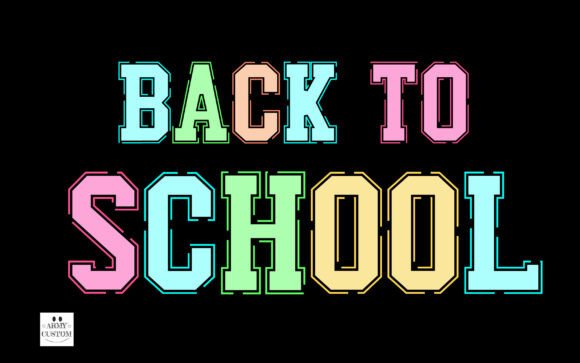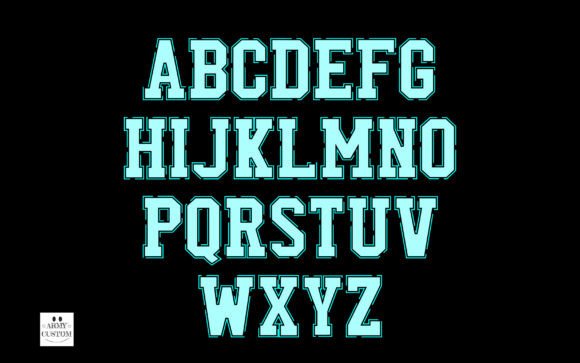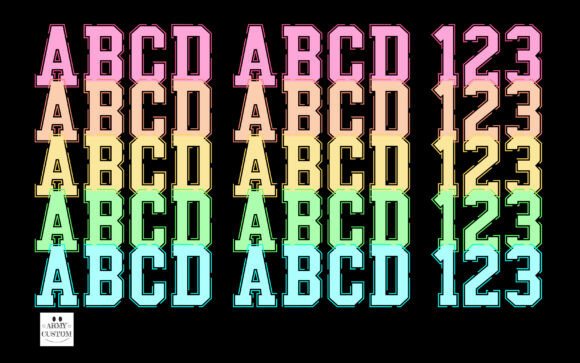
Introduction to Neon Varsity Font Font
Fonts play a crucial role in design, and the Neon Varsity Font font is a typeface that brings both character and versatility to any project. Whether you’re working on a branding project, a website, or a print design, the Neon Varsity Font font offers a unique style that can elevate your work.
Immerse yourself in the vibrant, electrifying allure of the Varsity Letters and Numbers neon font.
This distinctive typeface is an absolute delight for Sublimation designs, effortlessly enhancing the appeal of unique merchandise like shirts, mugs, and so much more Infused with a vivacious spirit, each letter and number in this font set pulsates with an irresistible neon charm.
Key Features of Neon Varsity Font Font
The Neon Varsity Font font is more than just a typeface – it’s a design tool that helps you communicate your message with style and clarity. Its unique character set and versatile design make it suitable for a wide range of applications, from elegant invitations to bold headlines.
With its carefully crafted letterforms and balanced proportions, the Neon Varsity Font font ensures readability and visual appeal across all mediums.
What makes Neon Varsity Font font special?
The Neon Varsity Font font stands out with its unique design, exceptional readability, and versatility across various design applications.